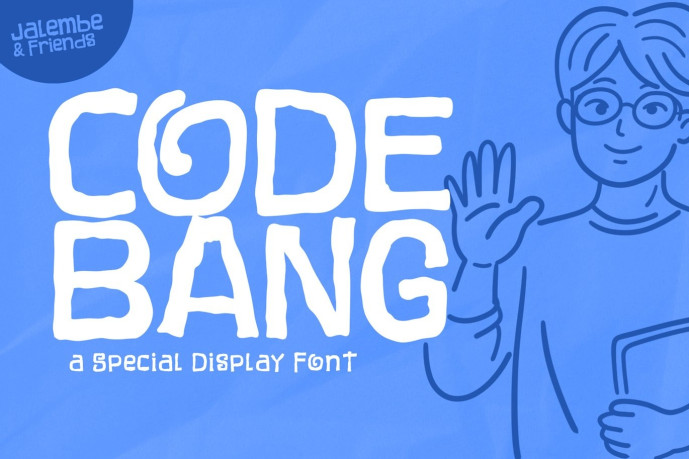
Code Bang Font
Designer: Khurasan
Code Bang Font is a fun and modern display font designed with a cheerful theme for your creative projects. This font is perfect for logos, branding, greeting cards, posters, and any design that needs a touch of personality and joy.